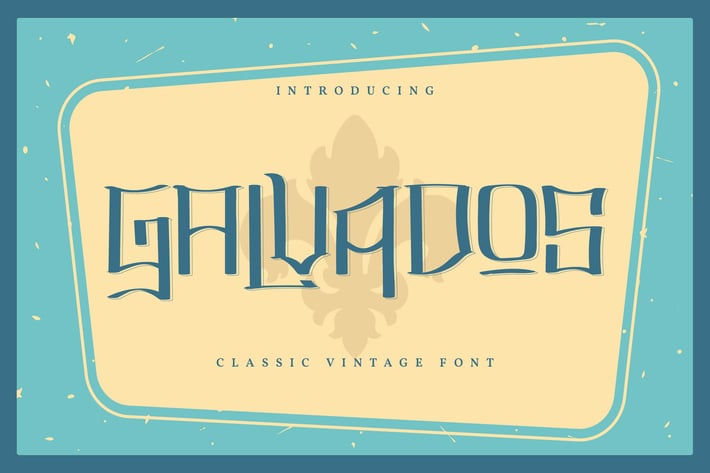
Galvados | Classic Vintage Font
Galvados | Classic Vintage Font with a calligraphy style, So beautiful on invitation like greeting cards, branding materials, business cards, quotes, posters, and more!